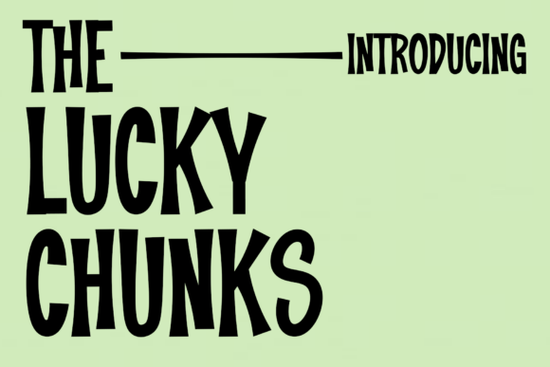
The Lucky Chunks Font is a versatile and elegant script that brings a handwritten feel to any design. Whether you're working on wedding invitations, greeting cards, or business materials, this font adds a touch of sophistication and personality. Its unique style makes it ideal for projects that require a personal, artistic flair. If you're looking for a font that stands out without being too flashy, The Lucky Chunks Font could be just what you need.
Designers and creatives often search for fonts that are both beautiful and functional. The Lucky Chunks Font fits that description perfectly. It’s easy to read while still maintaining a stylish appearance. This makes it suitable for a wide range of applications, from digital graphics to printed materials. For those who work with handcrafted designs or want to add a custom look to their projects, this font can be a valuable addition to your collection.
What Makes The Lucky Chunks Font Stand Out?
One of the key features of The Lucky Chunks Font is its balance between elegance and readability. Unlike some script fonts that can be difficult to read at smaller sizes, this one maintains clarity even when used in body text. This makes it a great choice for logos, headers, and other design elements where legibility matters.
The font also offers a variety of stylistic options, allowing users to customize their designs without needing additional tools. Whether you're creating a simple card or a complex layout, The Lucky Chunks Font provides flexibility and creativity. It works well with other fonts, making it easy to pair with different typefaces for a cohesive look.
Best Uses for The Lucky Chunks Font
- Wedding Invitations: Add a personal and elegant touch to your event designs.
- Greeting Cards: Make your messages stand out with a unique, handwritten style.
- Business Cards: Create a memorable first impression with a stylish font.
- Logos: Use it to craft a brand identity that feels authentic and artistic.
- Quotes and Social Media Graphics: Enhance visual content with a refined, creative look.
When choosing a font, it's important to consider how it will fit into your overall design. The Lucky Chunks Font is a strong option for those who want something that looks good and functions well. It’s especially useful for projects that require a handmade or artistic feel, making it a go-to choice for many designers.
Tip for Using The Lucky Chunks Font
Use The Lucky Chunks Font in moderation. While it's visually appealing, overusing it can make your design look cluttered. Pair it with simpler fonts for contrast and better readability.
If you're new to using script fonts, start by experimenting with small text elements like headings or captions. This allows you to get a sense of how the font works before applying it to larger parts of your design.
Whether you're a professional designer or a hobbyist, The Lucky Chunks Font can help elevate your creative projects. Its combination of style and usability makes it a valuable asset for anyone involved in graphic design, crafting, or print-on-demand work.
Before finalizing your design, always test the font in different sizes and contexts. This ensures that it looks good across all platforms and mediums. With a little practice, you’ll be able to make the most of this beautiful script font.
Remember, the goal of any design is to communicate effectively while looking great. The Lucky Chunks Font helps achieve that balance, making it a smart choice for a variety of creative applications.
Take a moment to explore how this font can enhance your next project. You might find that it becomes one of your go-to choices for adding a personal, elegant touch to your work.